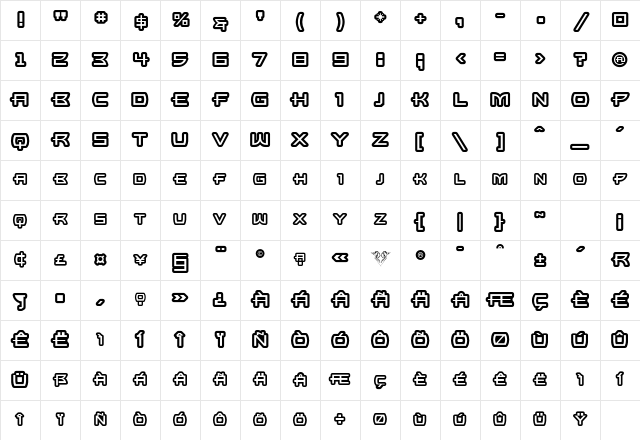
Complete UltraBronzo Outline glyph index. Displaying only characters natively supported by UltraBronzo Outline font.
UltraBronzo is built around its visual character rather than neutral utility - its distinctive forms are designed to make an impression at display sizes.
Font Pairing: Pair with a clean neutral sans-serif for body copy to let UltraBronzo's character lead without overwhelming the composition.
Pro Tip: Use UltraBronzo exclusively at display sizes - it was designed to be seen, not read at length. Let a neutral companion handle body copy.